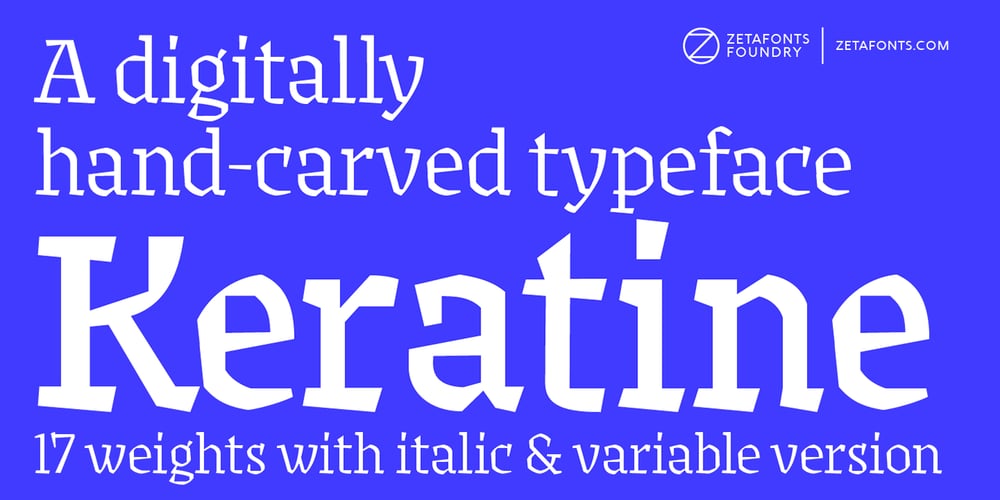
Keratine Font Family was designed by Andrea Tartarelli, Cosimo Lorenzo Pancini, Mario De Libero and published by Zetafonts. Keratine contains 17 styles and family package options. The letterforms that we now accept as the historical standard for printing latin alphabets were developed in Italy around the end of 1400. Deriving from Roman capitals and from italic handwriting, they soon replaced the blackletter letterforms that were used a few years before by Gutenberg for his first moveable types. Between these two typographical traditions there’s an interesting and obscure middle ground of historical oddballs, like the Pannartz-Sweynheym Subiaco types, cut in Italy in 1462.Keratine is the result of Cosimo Lorenzo Pancini’s exploration of that territory. Like our Kitsch by Francesco Canovaro it explores the impossible territory between antiqua and blackletter, not as a mere historical research, but rather as a way to re-discover and empower an unexpected and contemporary dynamism. Using contemporary digital aesthetics to combine the proportions of humanistic type with the gestural energy of Fraktur letterforms, Keratine develops a “digitally carved”, quasi-pixelated appearance (clearly stressed in Keratine’s italics) that allows an unexpected balance between small-size readability and display-size personality.Keratine also relies heavily on a variable identity as the letterforms change dynamically with weight, developing from a contrasted, text-oriented light range to more expressive and darker display range, for a total of 8 weights with italics. Open type features and glyph alternates further enrich the usage possibility of this typeface that embodies our contemporary swap culture by embracing the contradictory complexity at the crossroads between Gothic and Humanist styles, while playfully empathising with a digital, brutalist spirit.